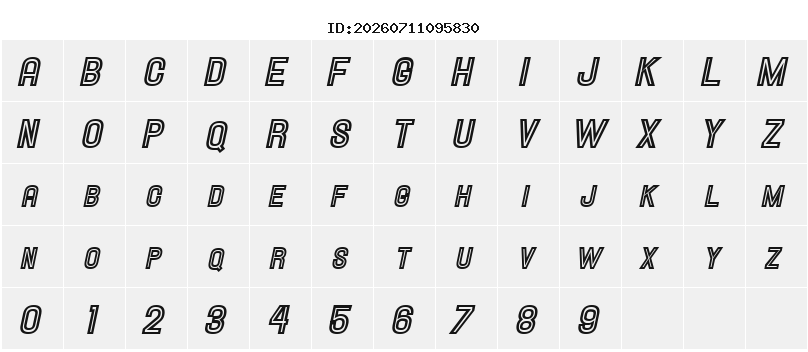
Hallandale Inline SC It. JL Preview
• Font Name: Hallandale Inline SC It. JL
• Font ID: Hallandale Inline SC It. JL
• Full Font Name: Hallandale Inline SC It. JL
• Version: version 1.0
• PostScript Name: HallandaleInlineSCItJL
• Designer: Jeffrey N. Levine
• Manufacturer: Jeff's Fonts & Dingbats
• Description: "Hallandale Inline Small Caps Italic JL".
About Hallandale Inline SC It. JL.ttf
Hallandale Inline SC It. JL.ttf is a modern, elegant sans-serif font designed for ultimate readability and visual harmony. Perfect for branding, headlines, web design, and print materials.